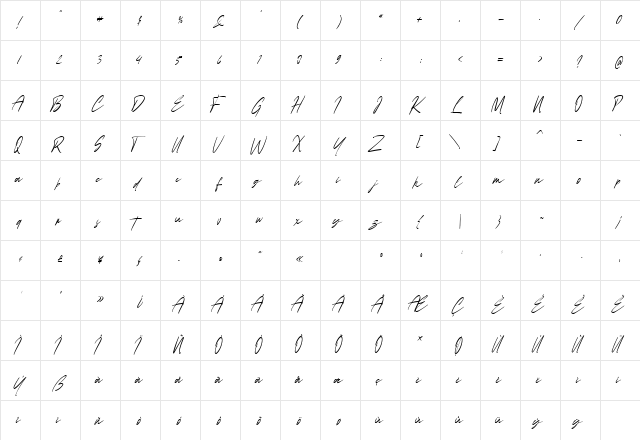
Katteline Rumadhon Regular
| Foundry | Subqi Studio |
| Designer | Amir Subqi Setiaji |
Design Context for Katteline Rumadhon Typeface
Katteline Rumadhon is a composed and adaptable typeface that performs quietly and consistently across a wide range of design contexts.